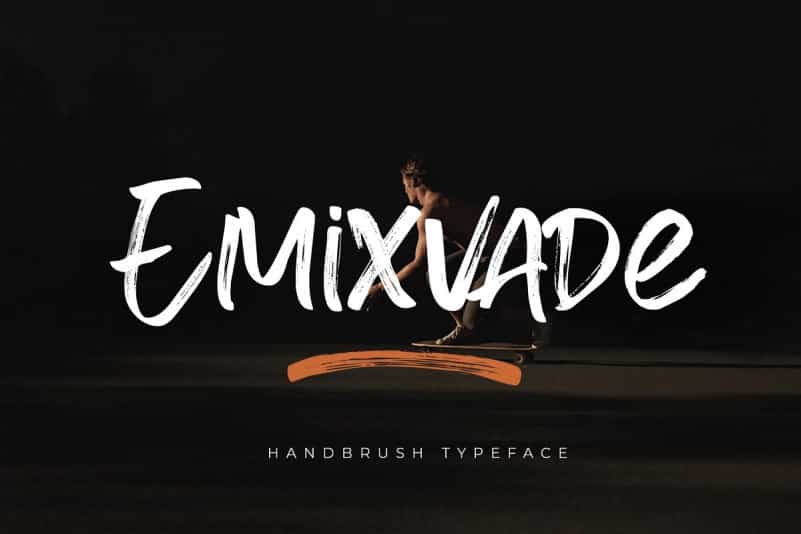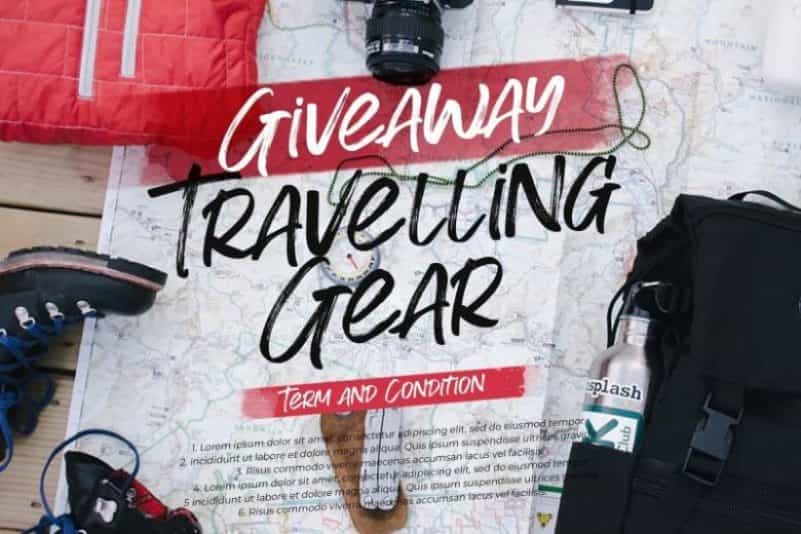
Emixvade is a hand brush product that has some additional features. Fast strokes which are quick dry and a signature style, rustic handwriting that is also dapper, with the personal charm of it. Your confidence would be twice as much by using this font.